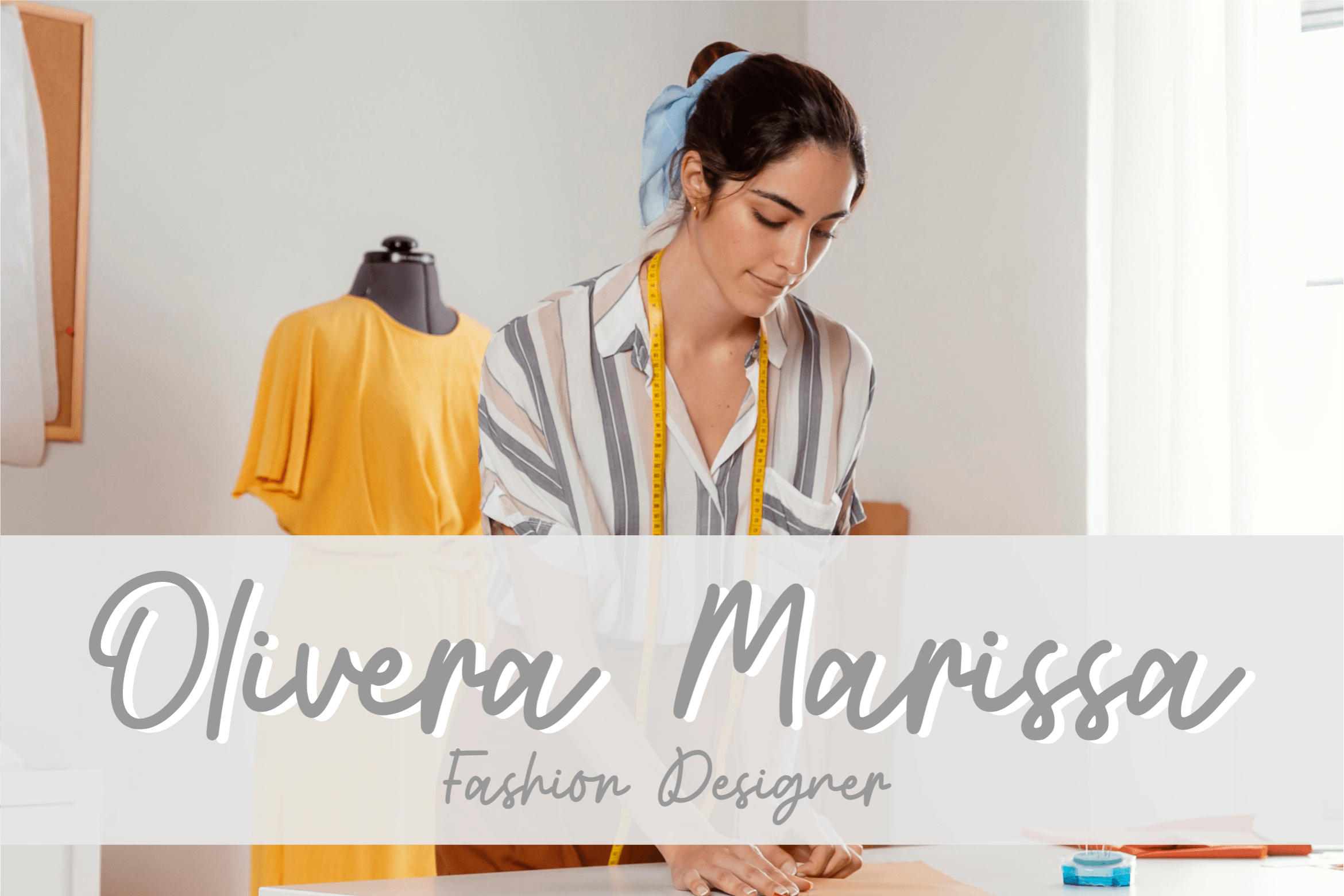
Bestfeeling Font
Bestfeeling Handwritten Font
This is a stylish and quirky handwritten font. Its informal style and casual vibe will make this font a go-to choice for each of the creations that require a relaxed touch.